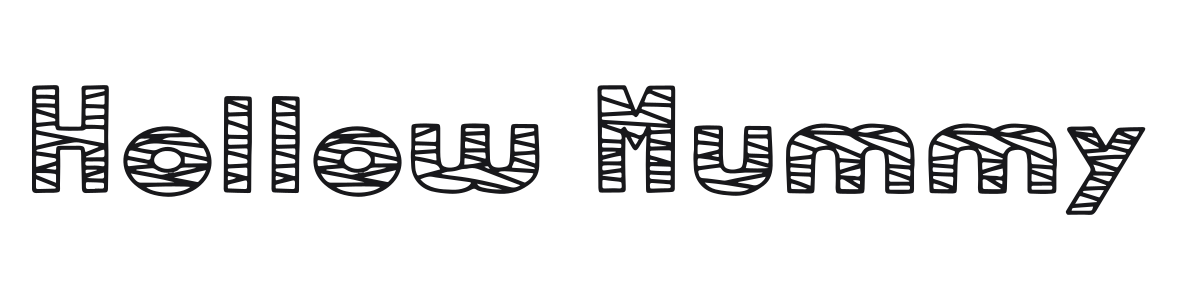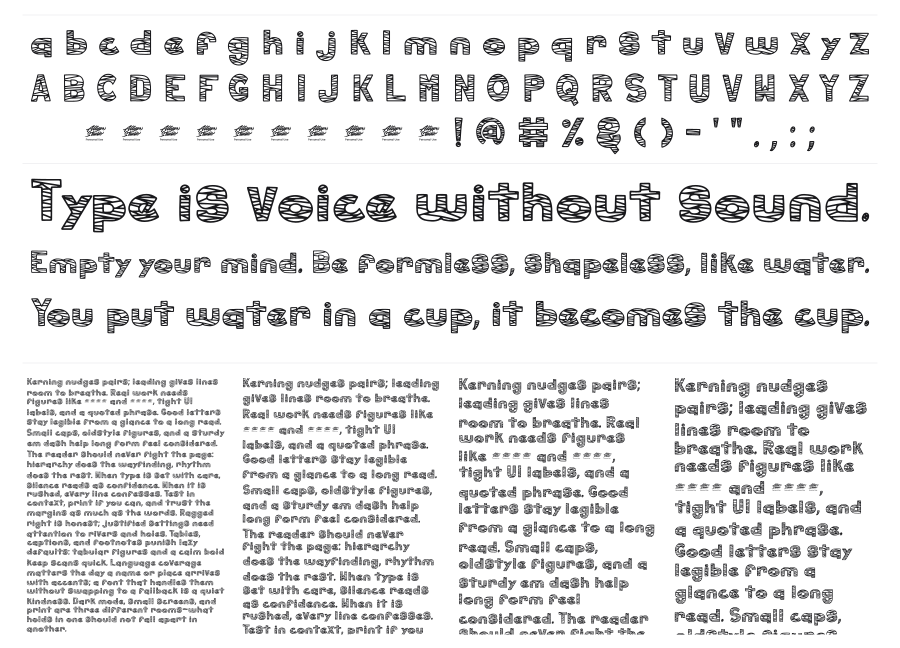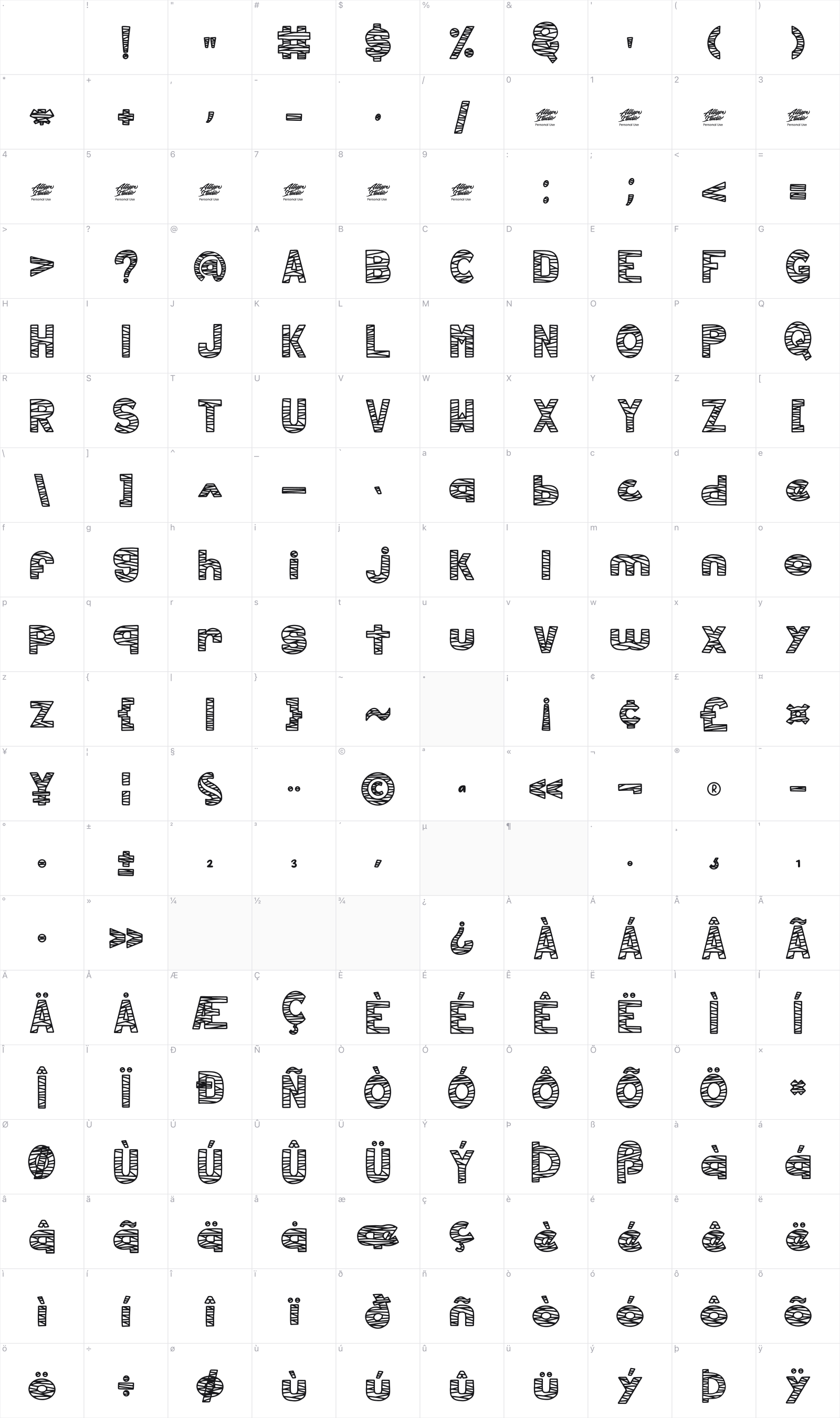
Hollow Mummy
Hollow Mummy is a bold rounded display font wrapped in horizontal bandage-stripe textures that mimic a mummy's cloth wrappings. The chunky, soft letterforms keep the mood festive and cartoon-like rather than frightening, making it work well for Halloween parties, seasonal packaging, and children's horror themes. The inline texture gives it visual depth that reads clearly at large sizes.